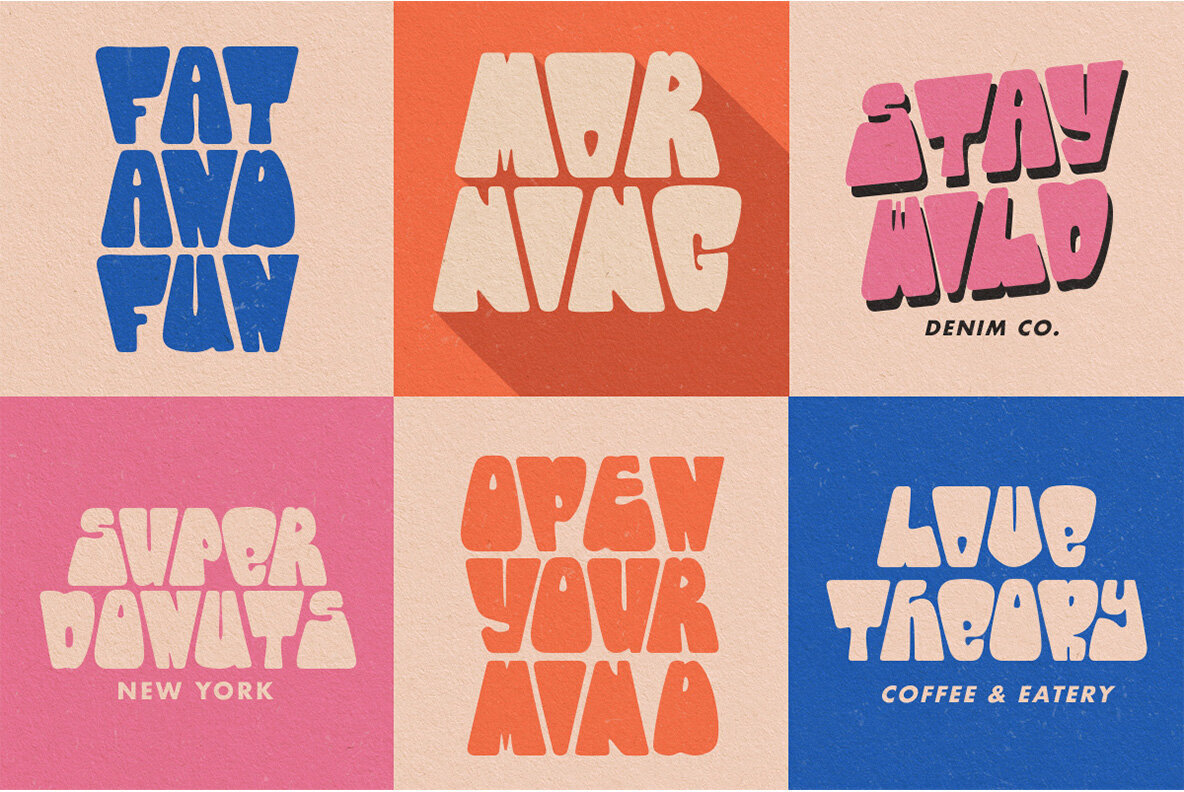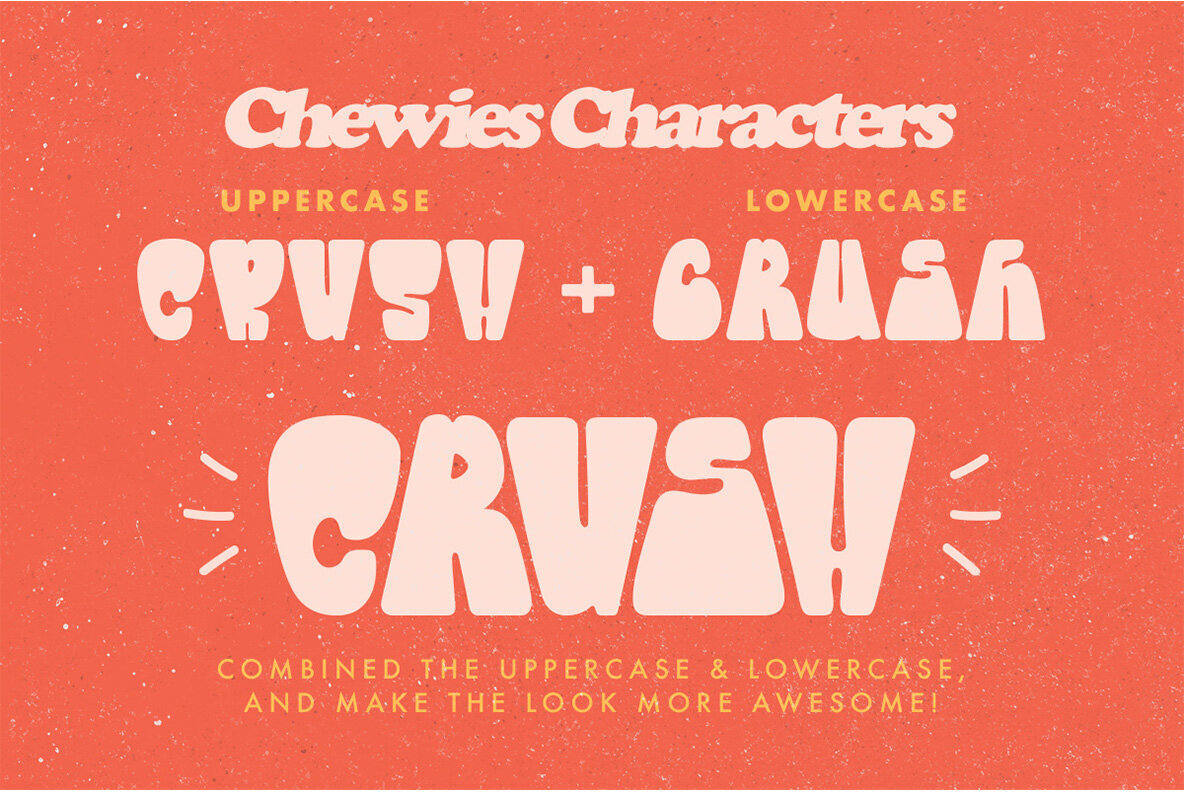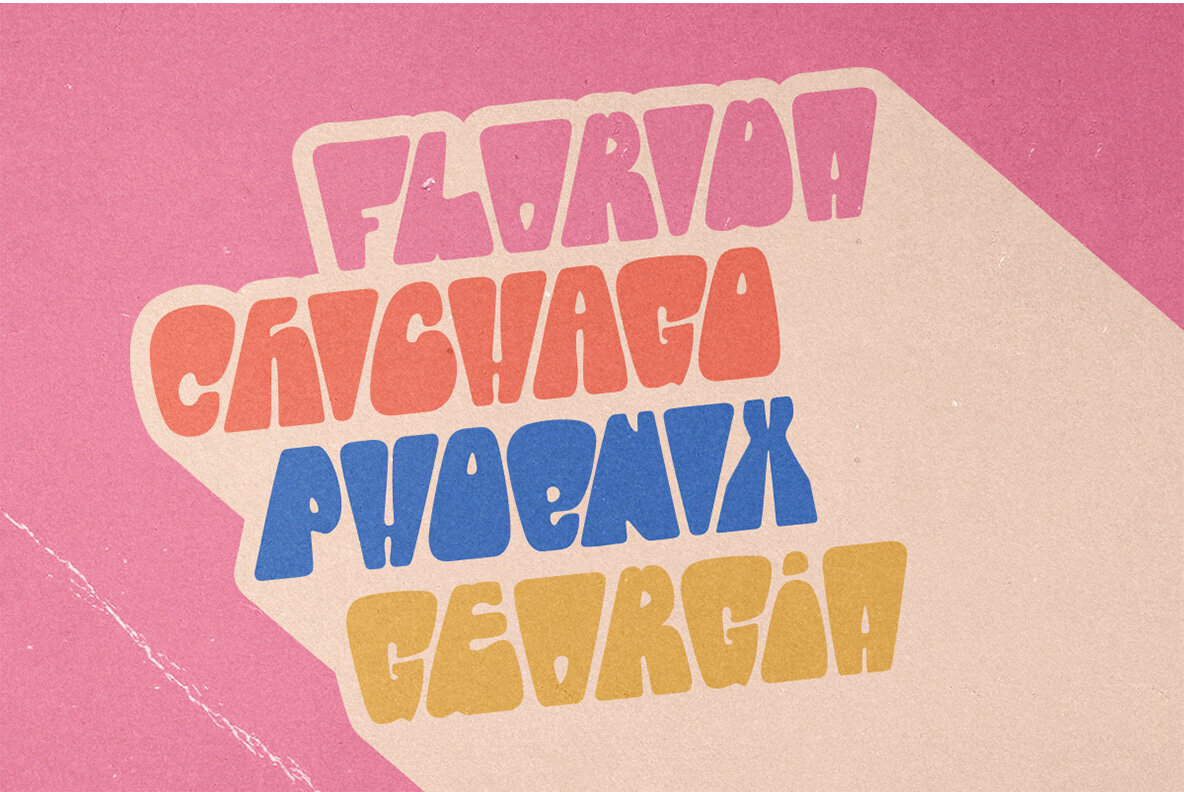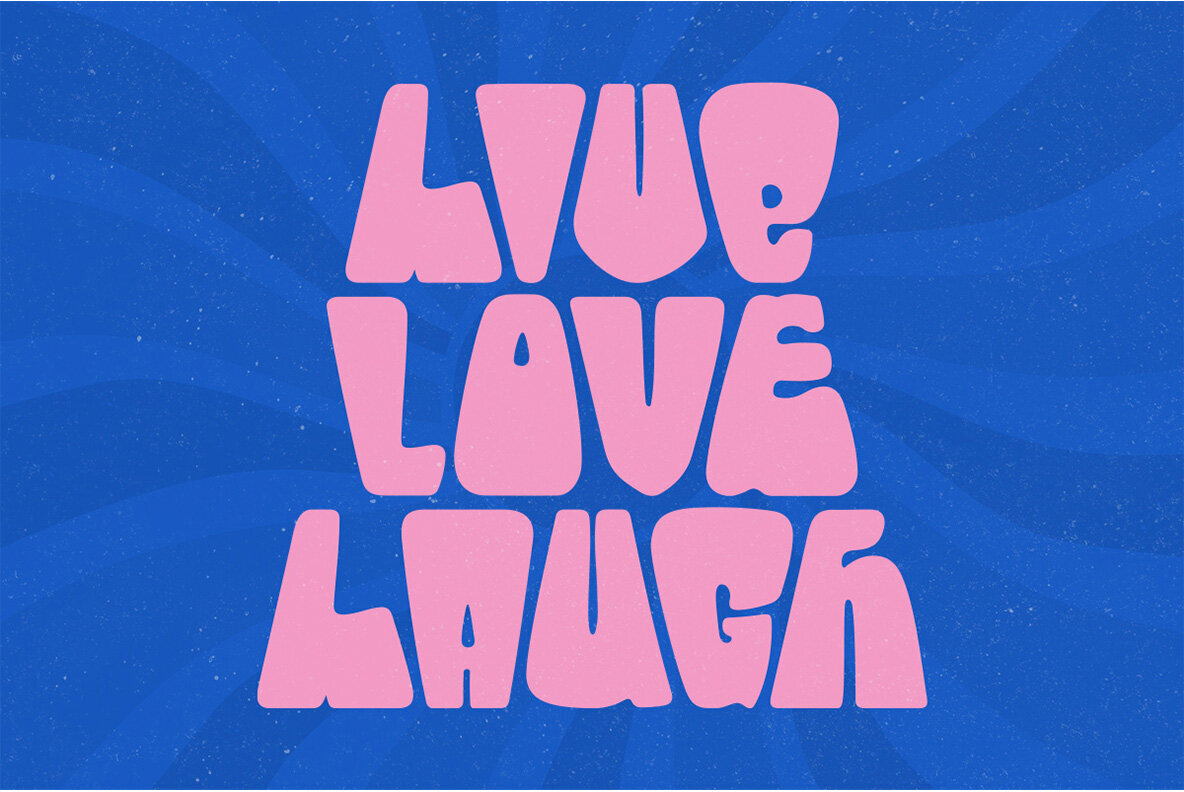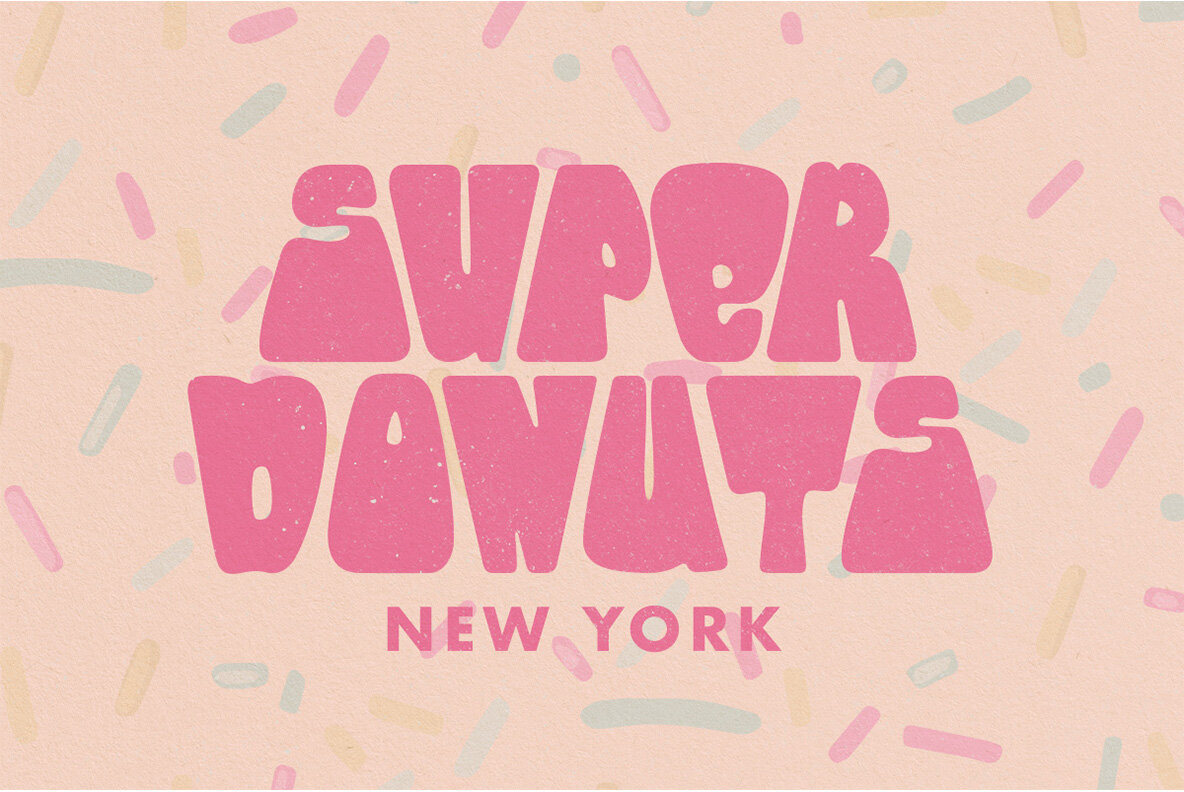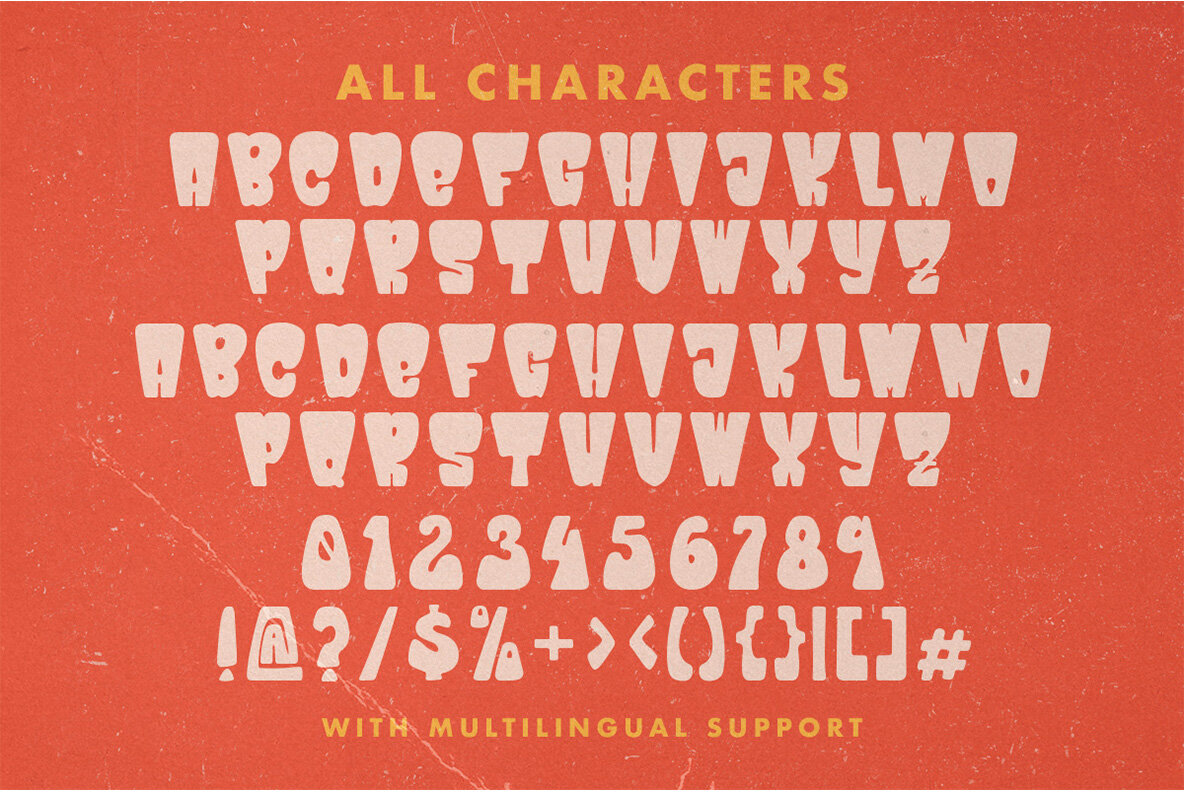
Chewies Font
Chewies Regular
Chewies brings an engaging playfulness to any design project. With its standout bold letterforms, this font is tailored for those seeking to create eye-catching logos, invitations, and various formal expressions. Functioning seamlessly in both uppercase and lowercase, it allows designers the flexibility to adapt it fittingly across diverse design needs, making it especially effective for logos and advertising.Chewies: A Quirky Bold Font for Versatile Designs